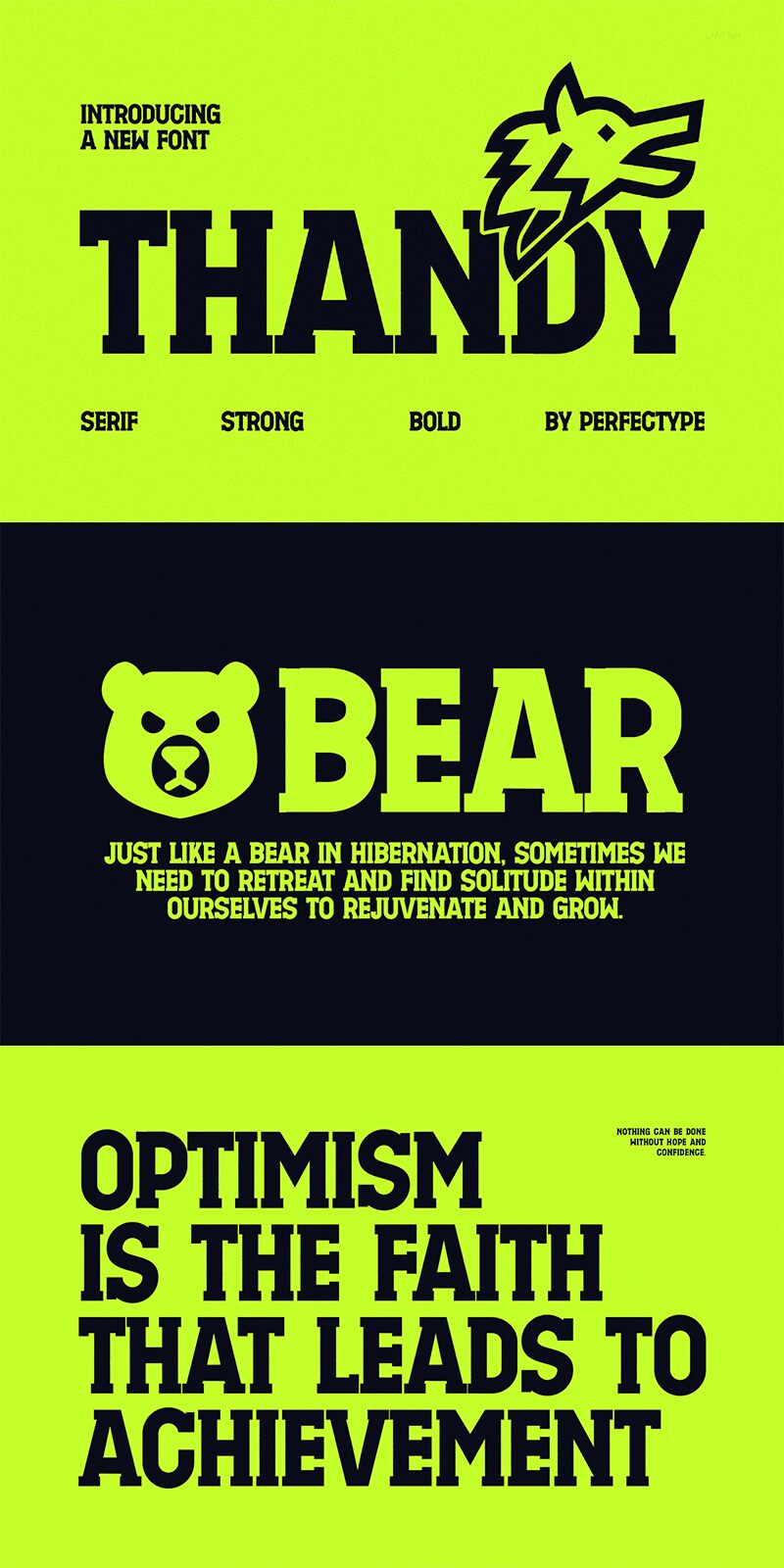
Thandy font is a strong presence serif font by Setyo Wati combining modern aesthetics with an impactful character. The font is easy to use for confidently assertive mood in contemporary applications in branding and headlines. This is achieved by giving special attention to the architecture of each letter presented in large sizes and combinations.
Thandy is originally designed for magazine use, a presumption confirmed by the first display of this font in a large title of a two column principles document. Thandy will be right for an impactful use that will benefit from a modern assertive style. Use it in advertising, product branding, posters, flyers, websites, covers, and more.